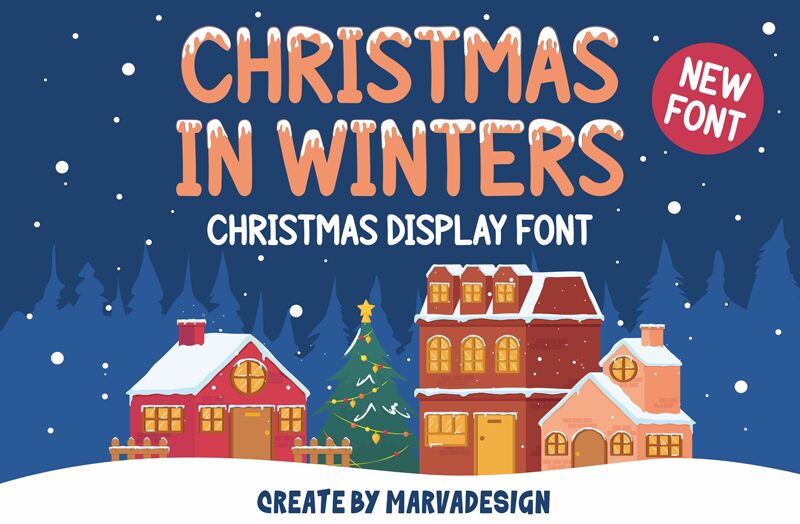
Christmas In Winters font by Marvadesign brings the cozy and festive essence of the holiday season to your designs. This free font captures the spirit of Christmas with its warm, inviting, and cheerful style that is both decorative and casual. Its playful nature and visually engaging elements make it the perfect choice for those looking to add a festive flair with a modern appeal.
This font is an excellent fit for holiday cards, event invitations, seasonal advertising, and decorations. Use it for Christmas-themed posters, web graphics, social media posts, and headlines that require a friendly and festive touch. Its joyful and inviting personality is ideal for any design that seeks to captivate viewers with holiday cheer.